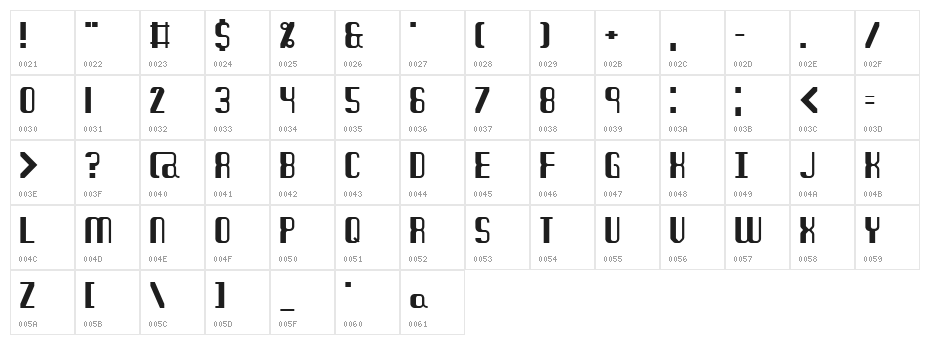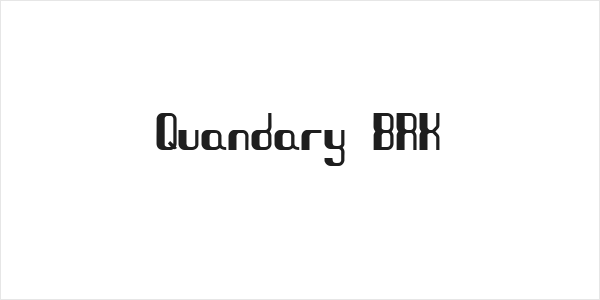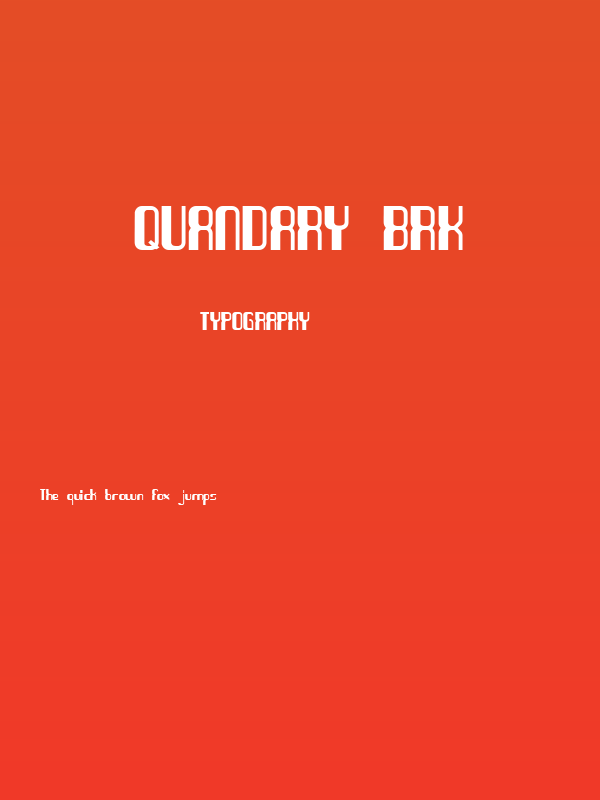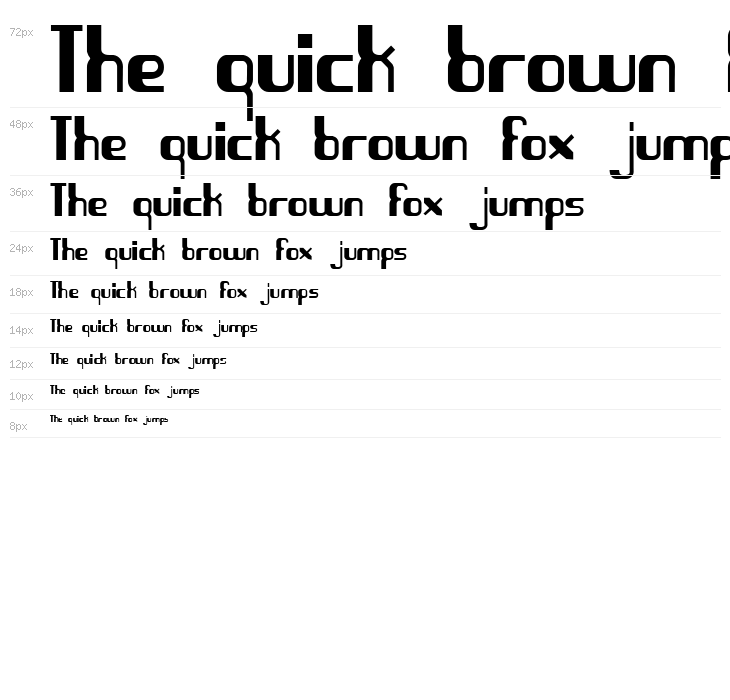
Quandary BRK Font
Quandary BRK Description
This font features a bold and geometric design with a unique, modern twist. The uppercase letters are characterized by their blocky, angular shapes, while the lowercase letters maintain a consistent style with slightly softer curves. The numerals are distinct and follow the same bold, geometric aesthetic. Special characters are creatively designed, adding a playful element to the overall style. The font's strong presence makes it ideal for attention-grabbing headlines or logos, where a contemporary and edgy look is desired.